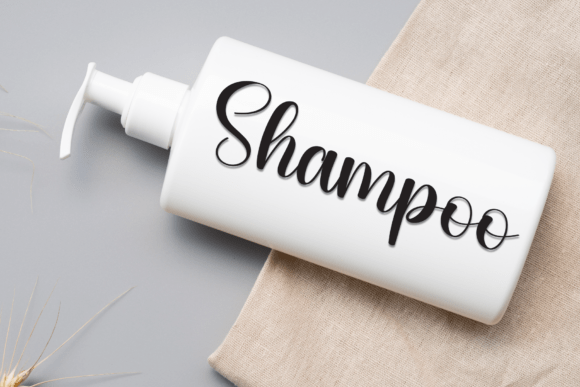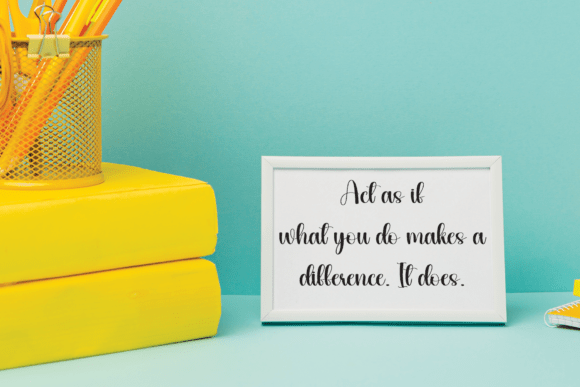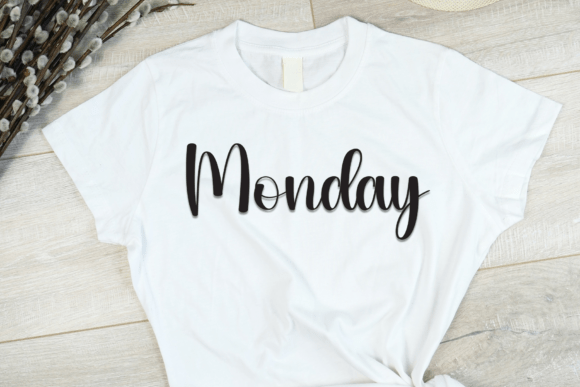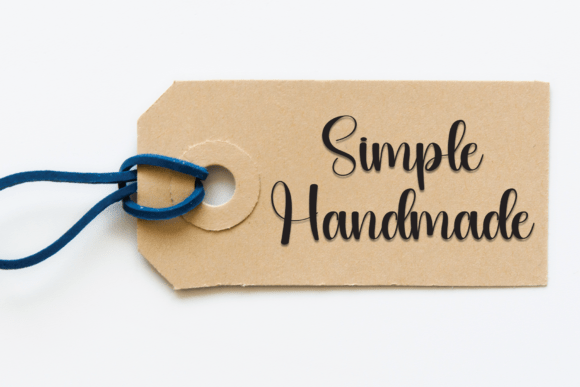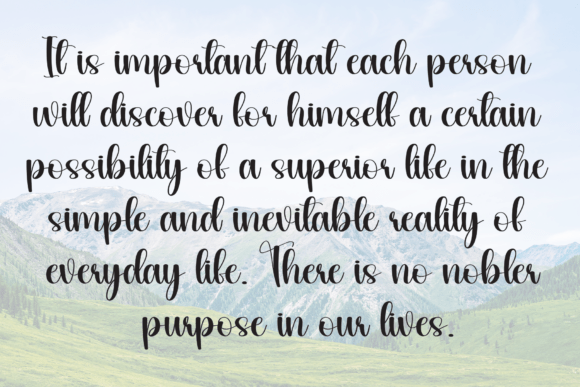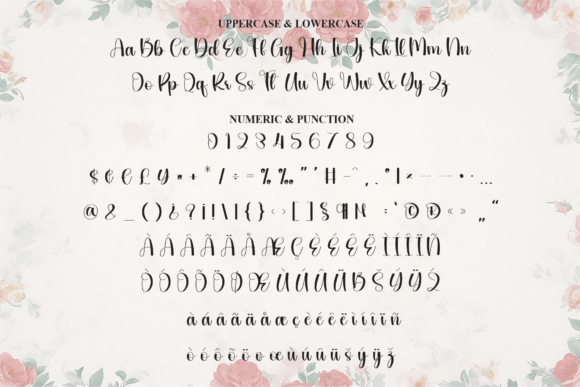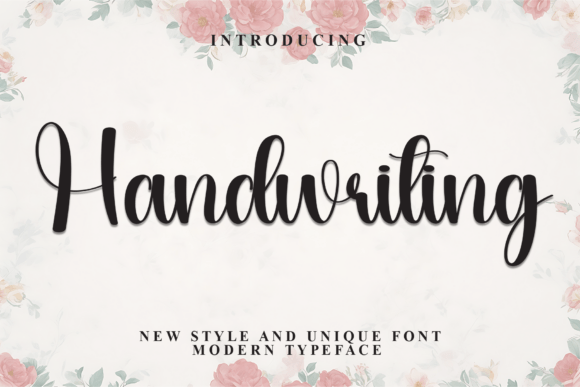
Elevate Your Designs with Handwriting Font: A Modern Script for Personalized Creations
Are you looking for a font that can add a touch of elegance and personality to your designs? Look no further than Handwriting Font, a charming and flowing modern script font that combines natural letterforms with graceful flourishes. This beautiful font is ideal for a variety of creative projects, including greeting cards, wedding designs, stationery, and logo projects.
The Beauty of Handwriting Script
Handwriting Script is a modern script font that is designed to bring a sense of warmth and personality to your designs. With its natural letterforms and flowing lines, this font has a charming and organic feel that is perfect for creating personalized and heartfelt designs. The font’s elegant strokes and beautiful flourishes add a touch of sophistication and professionalism, making it ideal for a wide range of creative projects.
Handwriting Script is a versatile font that can be used for a variety of creative projects, including:
- Greeting Cards: Add a personal touch to your greeting cards with Handwriting Script. The font’s elegant and flowing lines make it perfect for creating beautiful and heartfelt messages.
- Wedding Designs: Make your wedding designs truly special with Handwriting Script. The font’s romantic and elegant feel is perfect for creating stunning wedding invitations, programs, and other wedding materials.
- Stationery: Add a touch of elegance to your stationery with Handwriting Script. The font’s flowing lines and beautiful flourishes make it perfect for creating personalized and professional-looking stationery.
- Logo Projects: Use Handwriting Script to create a unique and memorable logo for your business or brand. The font’s elegant and sophisticated feel makes it perfect for creating a professional and polished logo.
Key Features of Handwriting Script
Handwriting Script has a number of key features that make it an ideal font for creative projects. Some of the font’s key features include:
- Natural Letterforms: Handwriting Script features natural letterforms that have a charming and organic feel.
- Graceful Flourishes: The font’s elegant strokes and beautiful flourishes add a touch of sophistication and professionalism.
- Modern Design: Handwriting Script has a modern design that is perfect for creating contemporary and stylish designs.
- Highly Legible: The font is highly legible, making it perfect for use in a variety of creative projects.
Tips for Using Handwriting Script
Here are a few tips for using Handwriting Script in your creative projects:
- Use it sparingly: Handwriting Script is a beautiful font, but it can be overwhelming if used too much. Use it sparingly to add a touch of elegance and personality to your designs.
- Experiment with different sizes: Experiment with different sizes to find the perfect size for your design.
- Pair it with other fonts: Handwriting Script pairs well with other fonts, such as serif and sans-serif fonts. Experiment with different font combinations to find the perfect look for your design.
Handwriting Script is a beautiful and versatile font that is perfect for a wide range of creative projects. With its natural letterforms, elegant strokes, and beautiful flourishes, this font brings a heartfelt personal touch with a professional polish. Whether you’re creating greeting cards, wedding designs, stationery, or logo projects, Handwriting Script is the perfect choice. So why not give it a try and see the difference it can make in your designs?